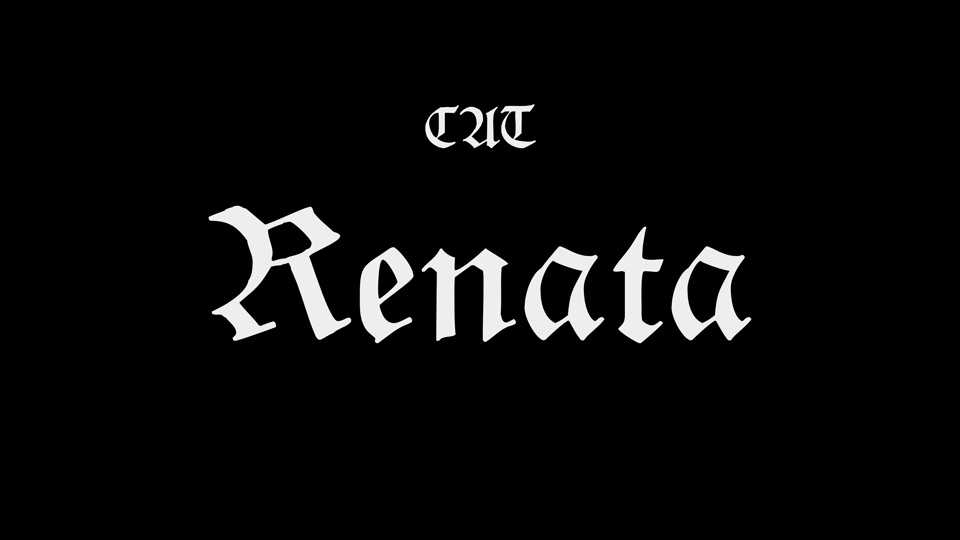
Download CAT Renata font, a blackletter typeface inpired by the Schwabacher type. It roots in the 15th century represents at the most the uprising humanism in this period.